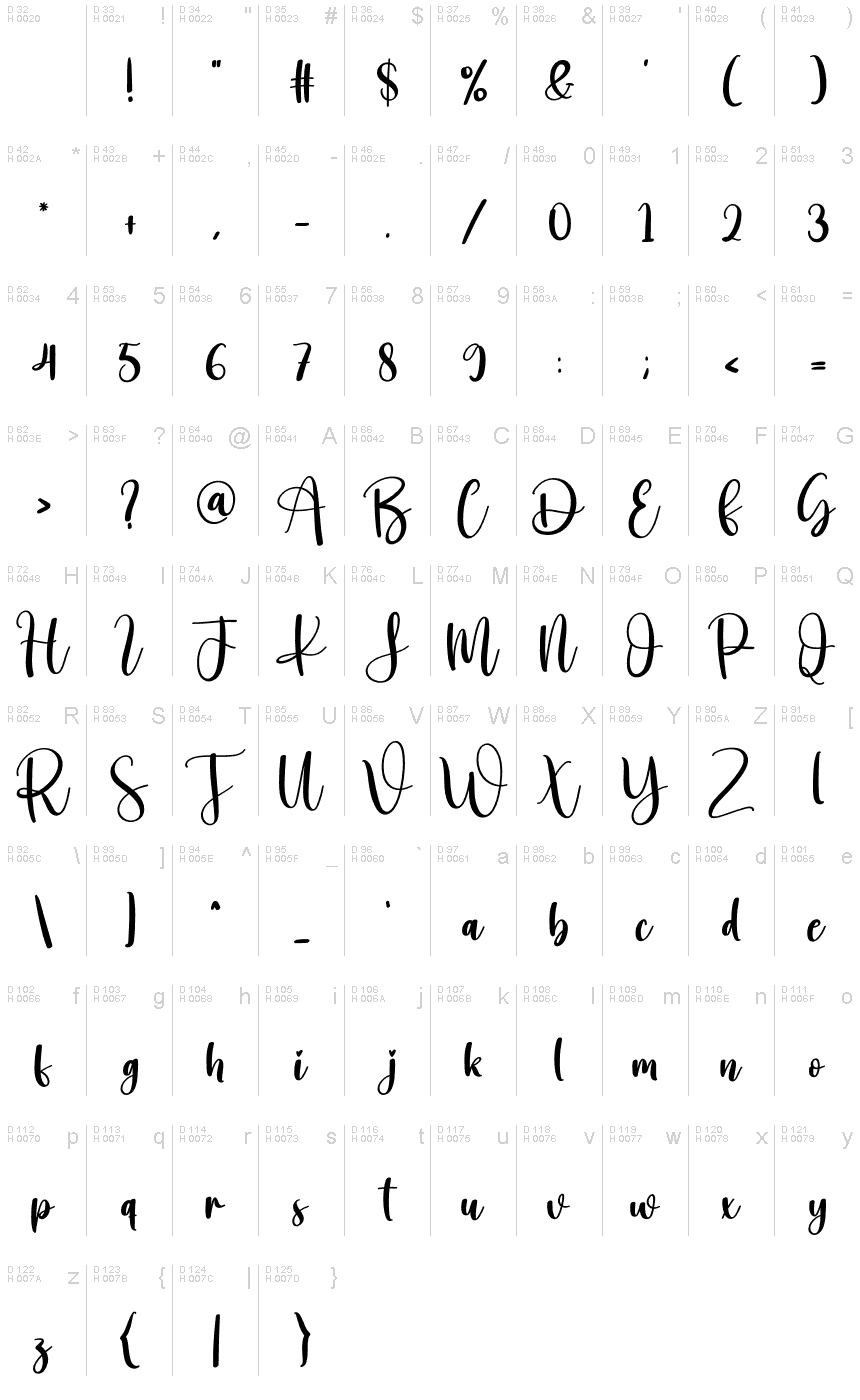
Remember
Remember, crafted by Scratchones, is a handwritten font that exudes charm and personality. Its fluid strokes and varying line weights capture the essence of personal touch, imbuing each character with a sense of individuality and warmth. The aesthetic appeal of Remember lies in its seamless blend of casual elegance and inviting familiarity, making it not just a typeface but an experience.
The style suggests an informal yet sophisticated vibe, perfect for designs that require a human element. Whether it's for branding projects that aim to feel approachable or for invitations that call for a bespoke touch, Remember offers versatility without sacrificing character.
Its potential extends to editorial uses where intimacy is key—think poetry or personalized messages—as well as to product packaging where authenticity is paramount. Embrace the bespoke beauty of Remember in your next creative endeavor and let its unique handwriting-inspired flair tell your story with grace and distinction.